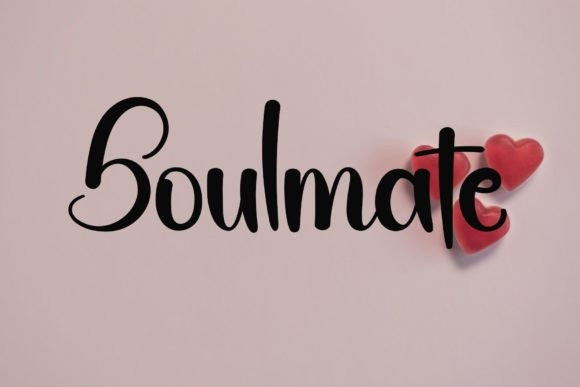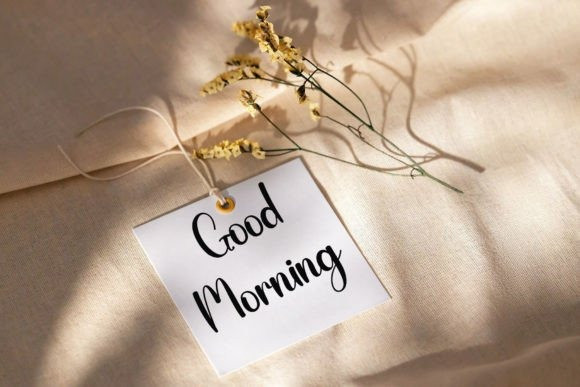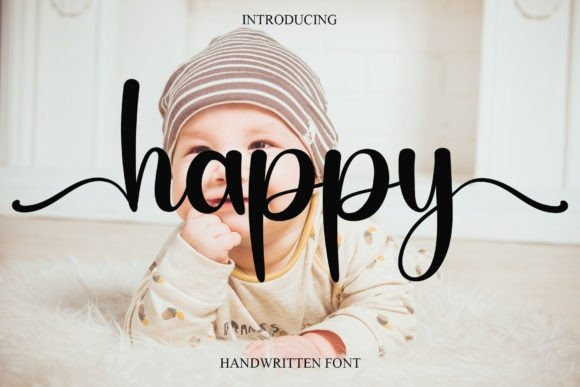
Happy Script Typeface
Happy Script Typeface is a sweet and beautiful handwritten font. Featuring characters that dance along the baseline. This font will add a luxury spark to any design project you wish to create!